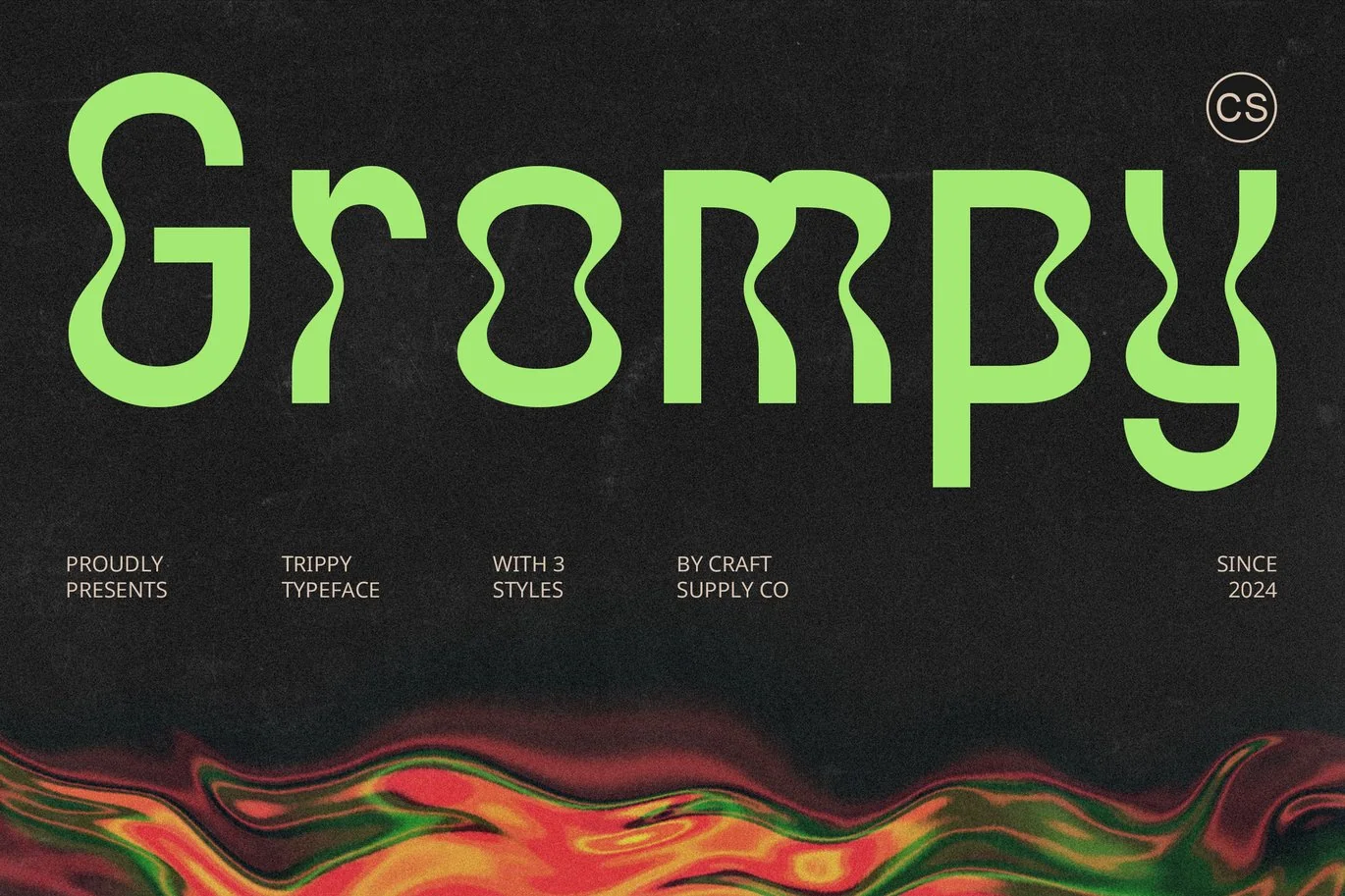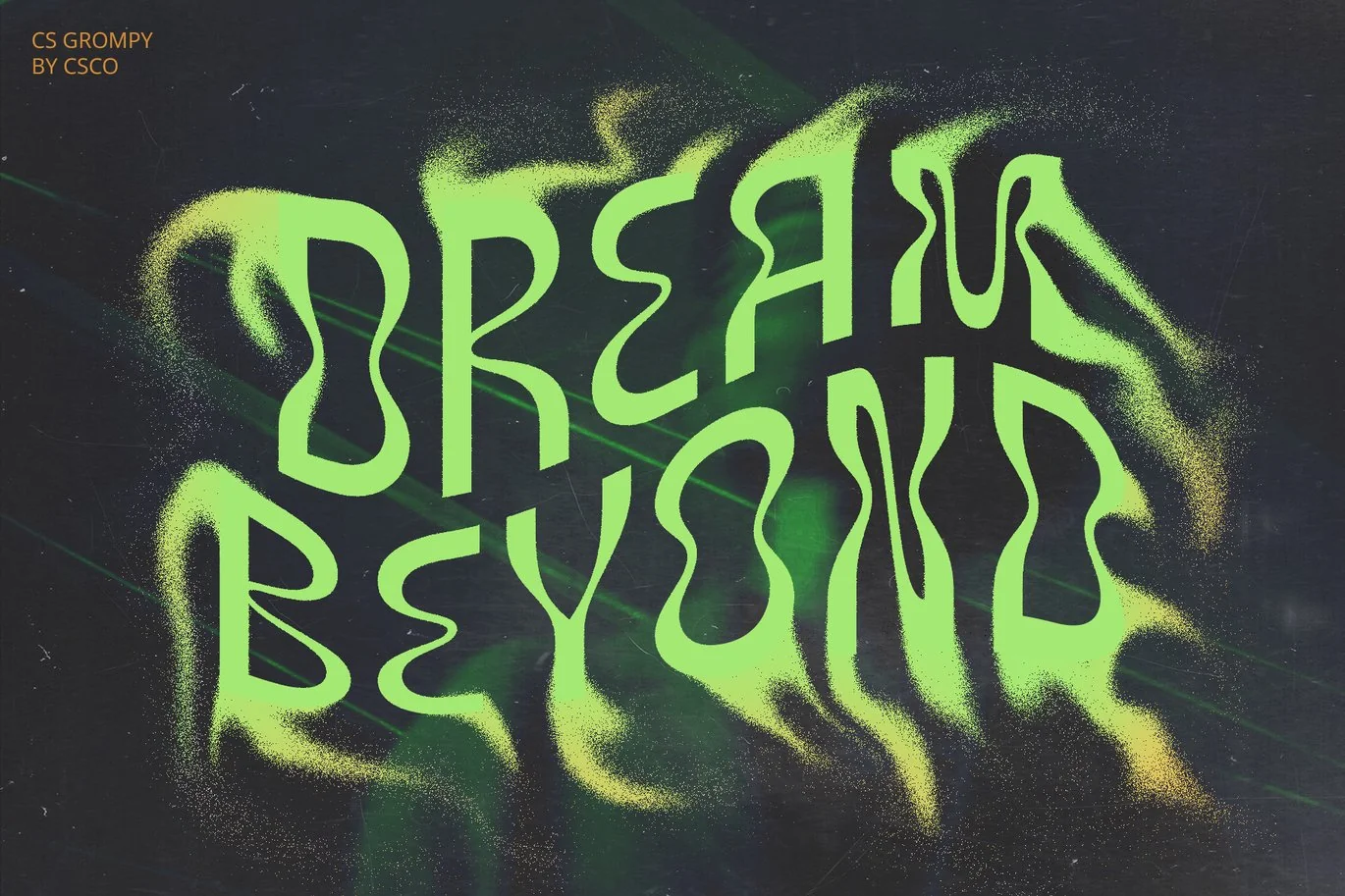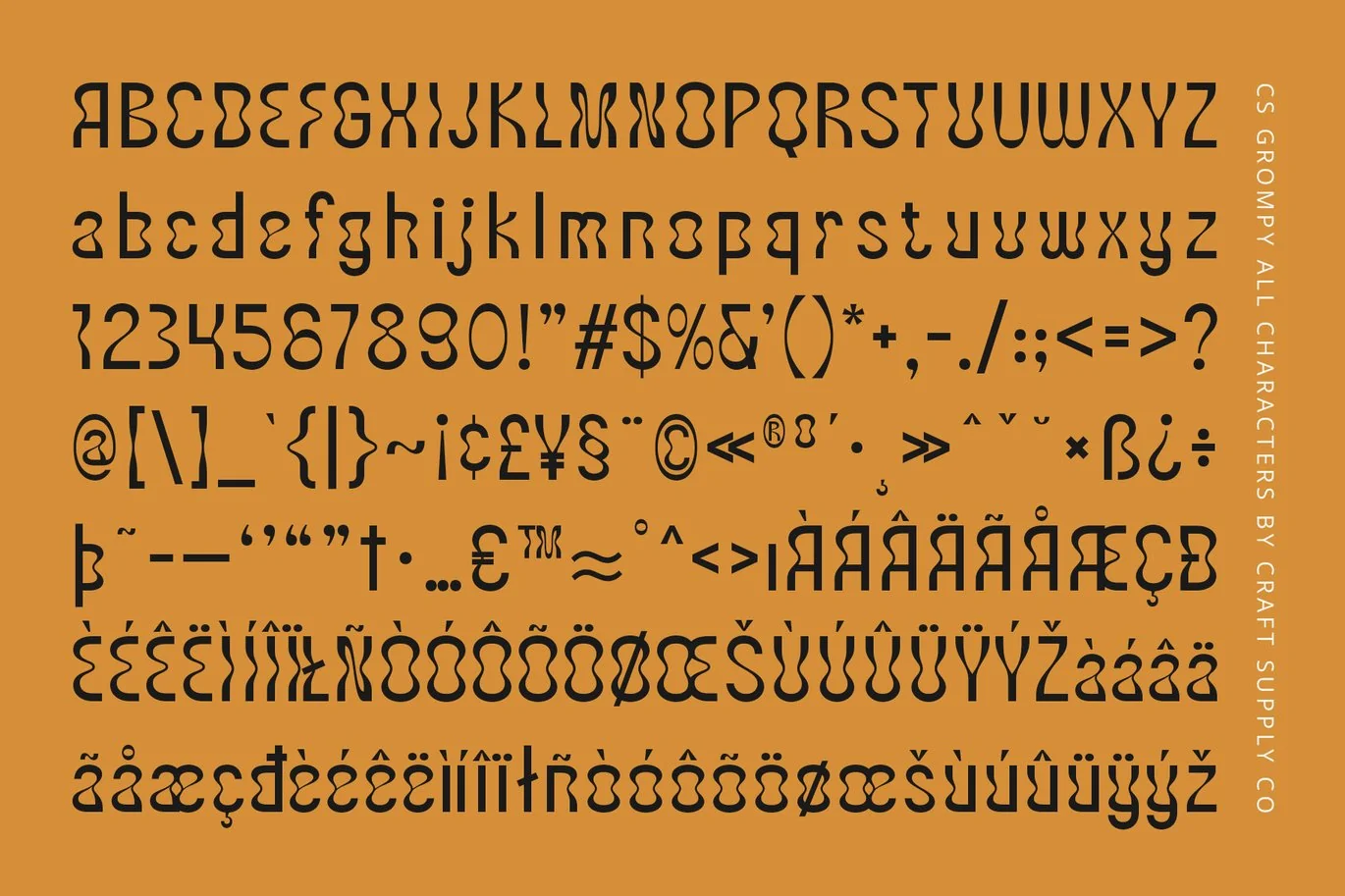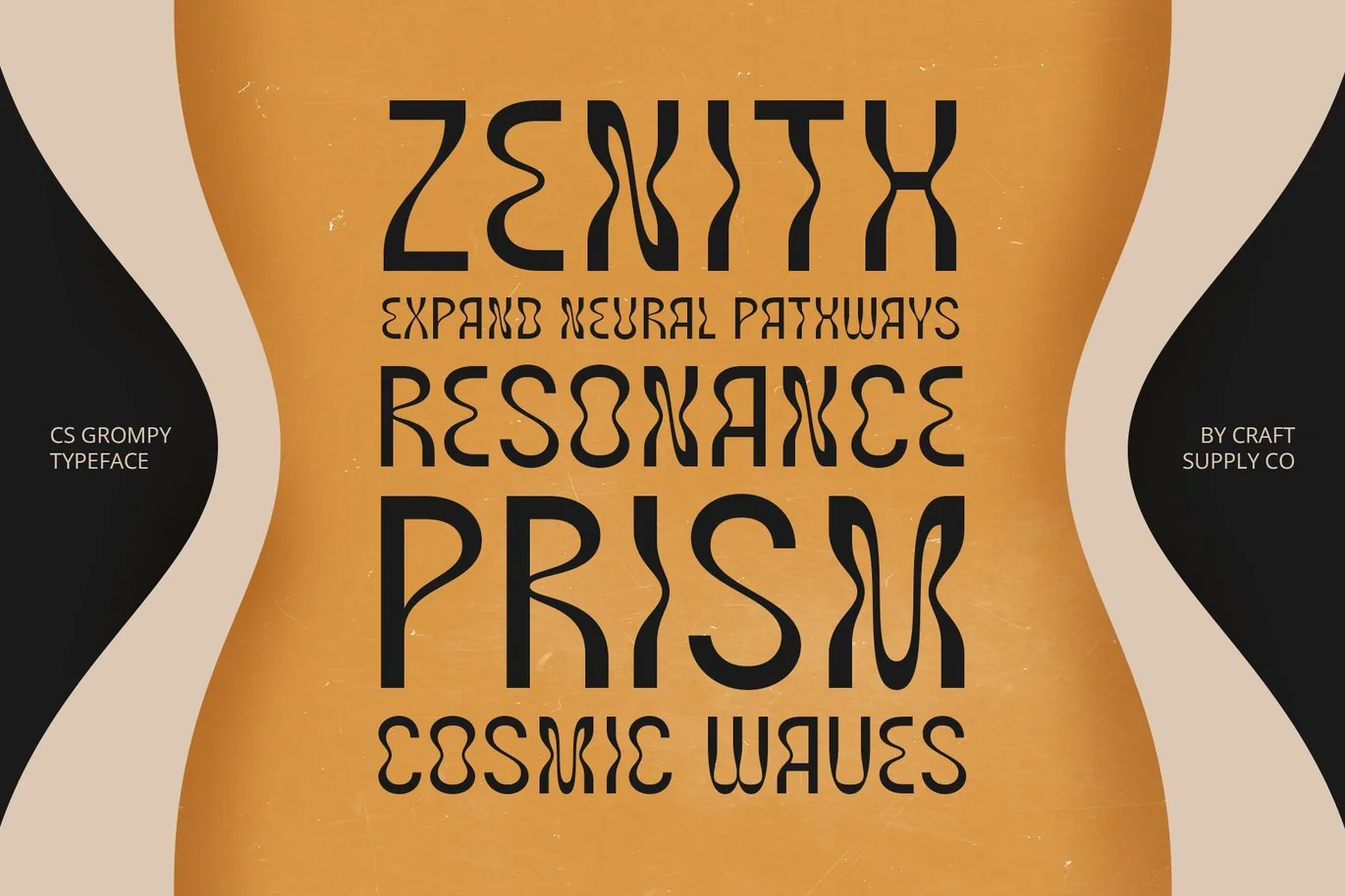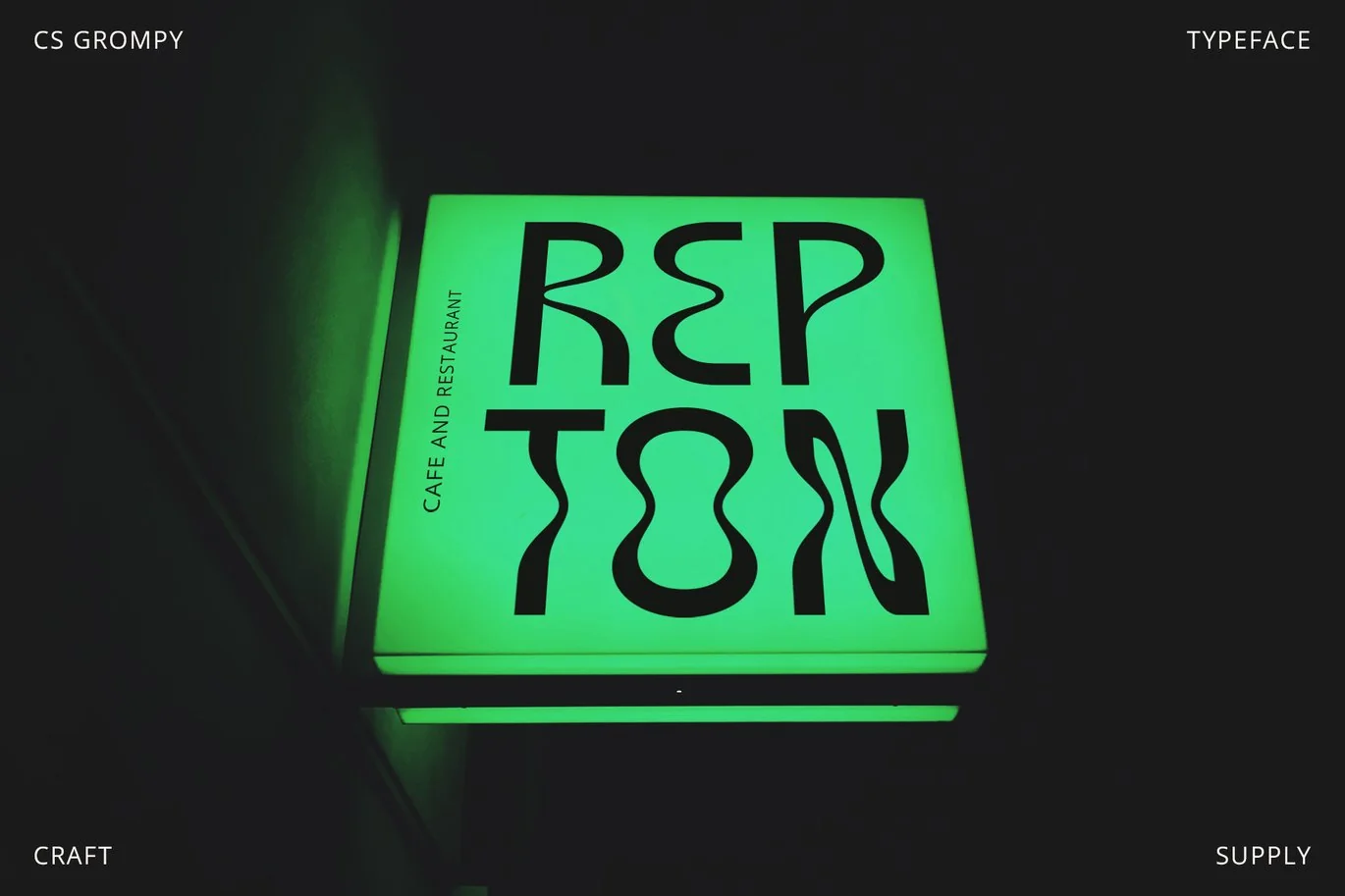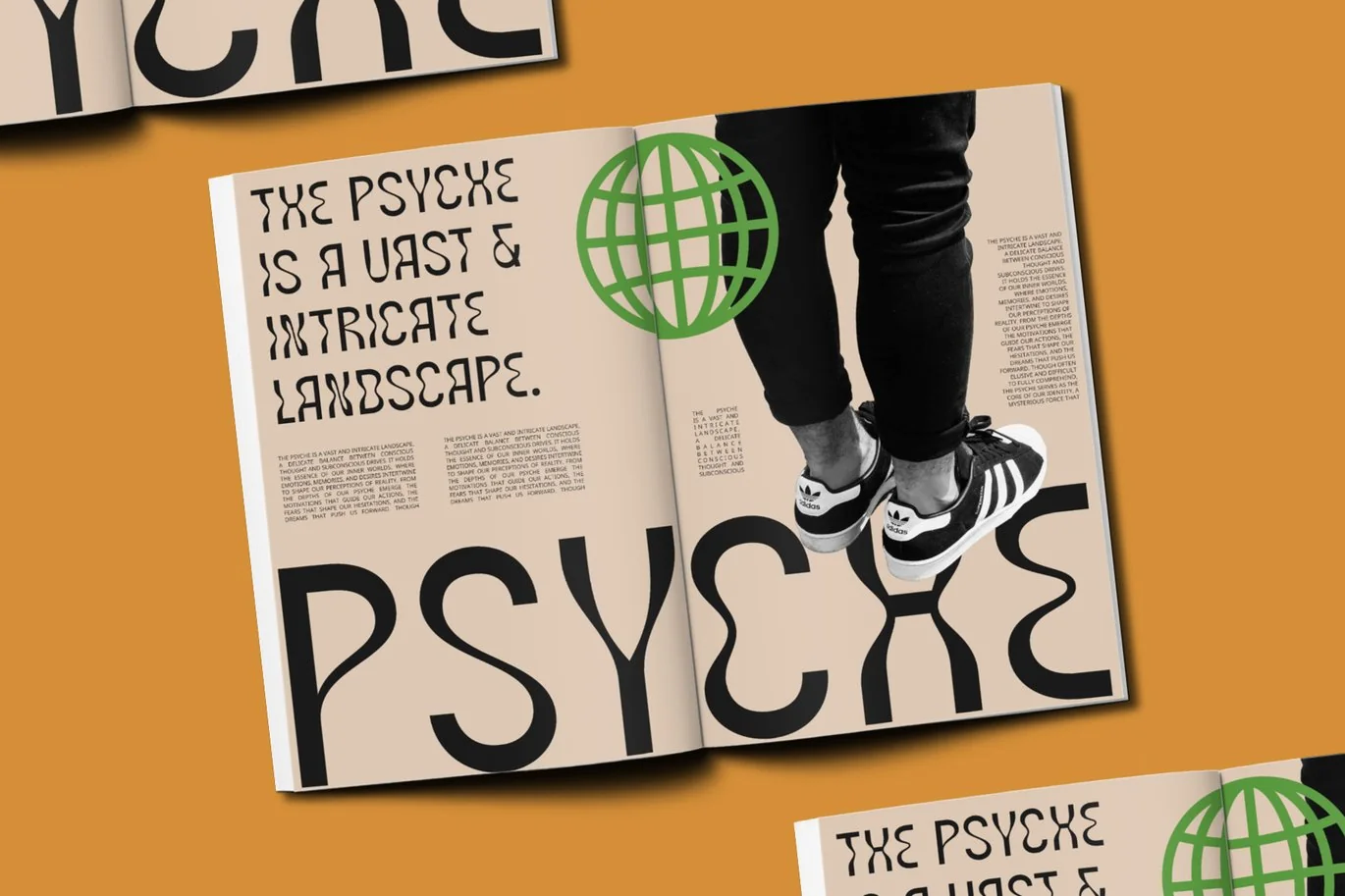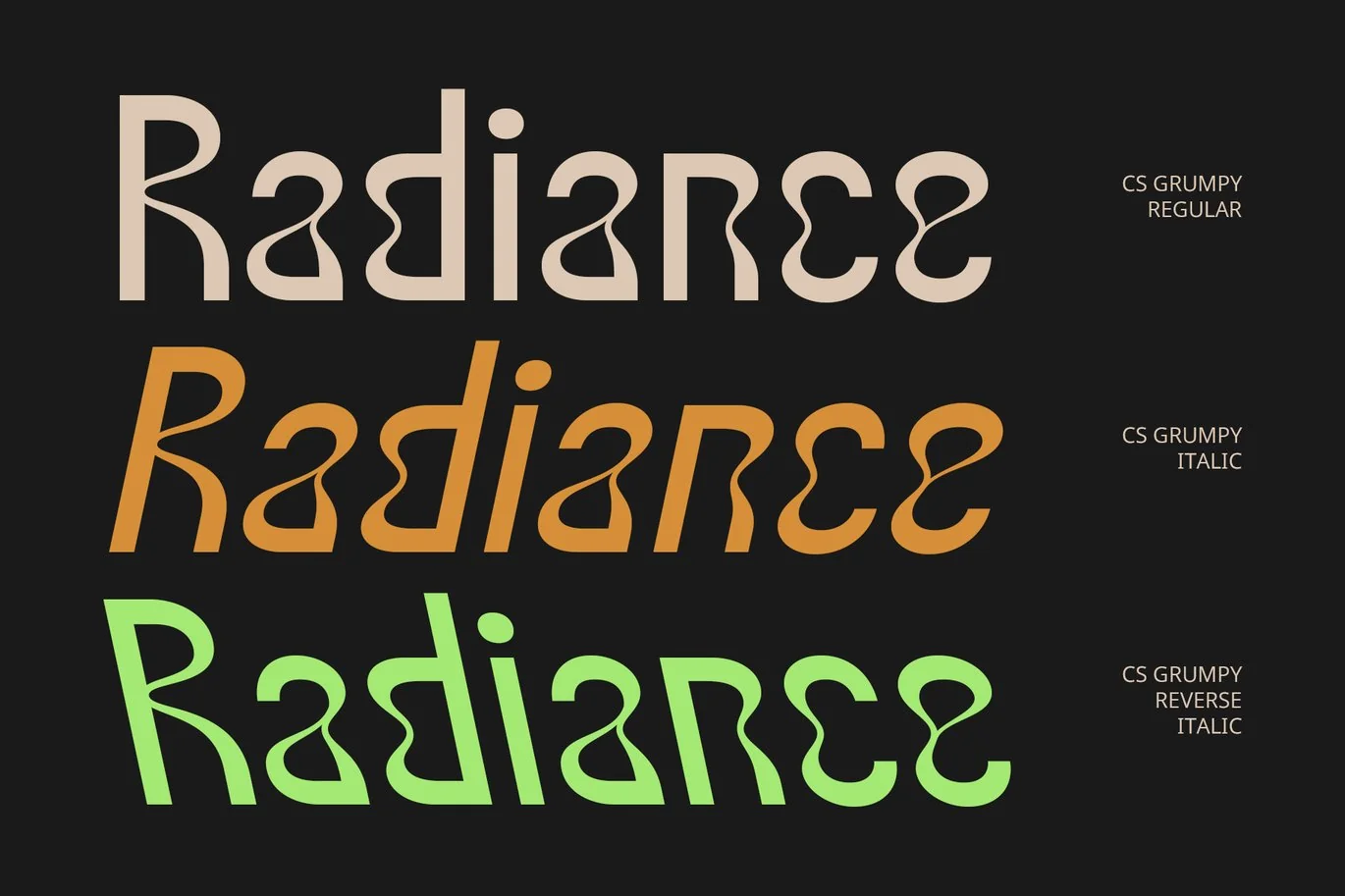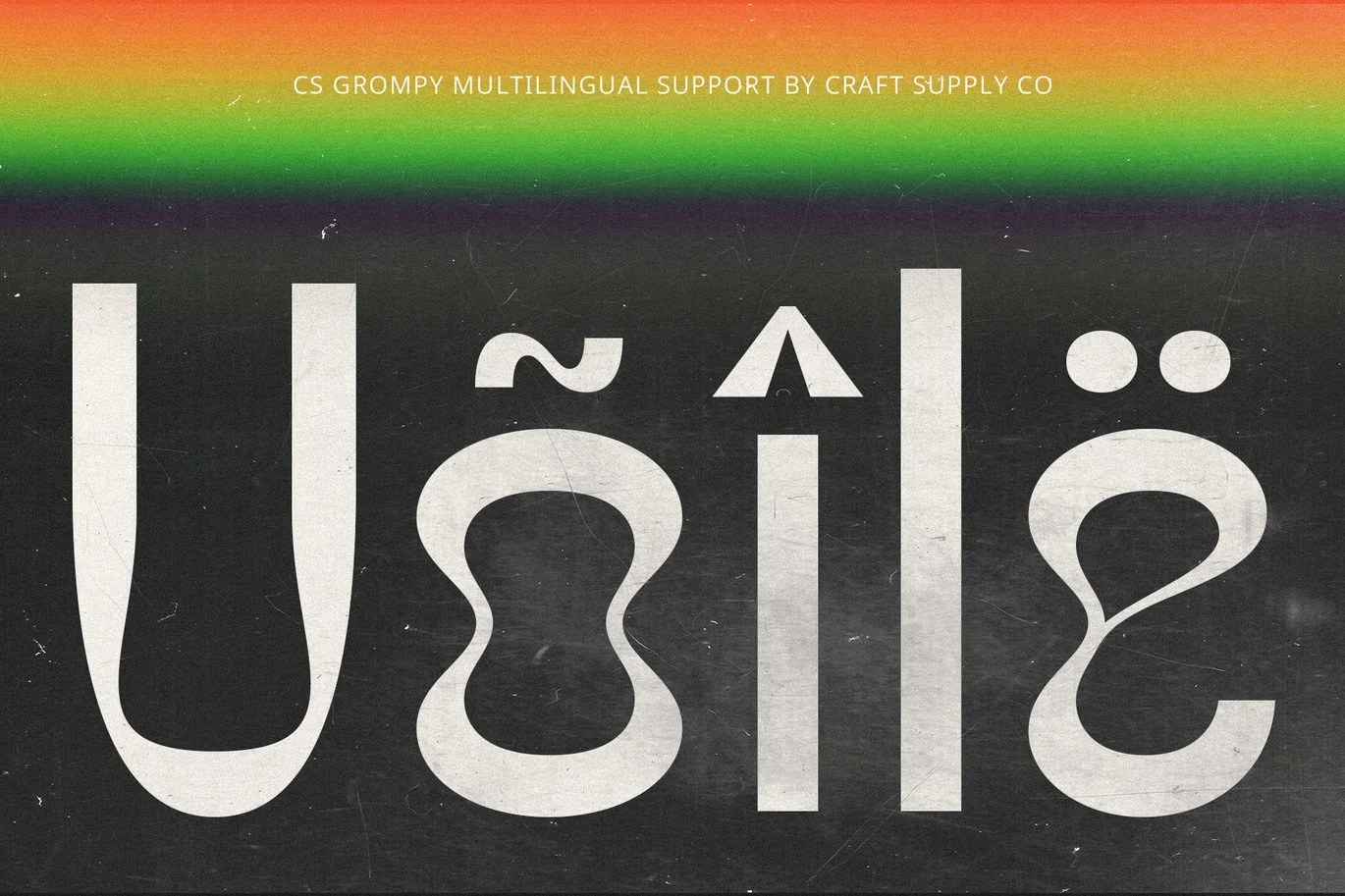
Grompy – Psychedelic Font
CS Grompy: The Psychedelic Display Font
A Funky Visual Experience
Introducing CS Grompy, a modern display font that embodies the essence of psychedelic design. With its vibrant and dynamic characteristics, this font creates a funky and cheerful impression that instantly elevates any project. The playful nature of CS Grompy shines through its unique letterforms, which often feature curved, repetitive, and irregular shapes. This design approach results in captivating visuals that are both eye-catching and memorable.
Bright Colors and Striking Patterns
CS Grompy is all about color and pattern. Its potential for bright, bold hues combined with striking patterns transforms ordinary text into a lively visual experience. Each letter can evoke a sense of joy and spontaneity, making it an ideal choice for designs that seek to create an energetic atmosphere. Whether used in large headlines or subtle accents, CS Grompy ensures that your message is delivered with flair and creativity.
Perfect for Creative Projects
This font is particularly suited for various creative applications, making it a versatile choice for designers. CS Grompy is perfect for event posters, where its vibrant energy can attract attendees, and music album designs, where it reflects the rhythmic and lively essence of sound. It also excels in marketing campaigns aimed at highlighting uniqueness and exuberance, ensuring that your brand stands out in a crowded marketplace.